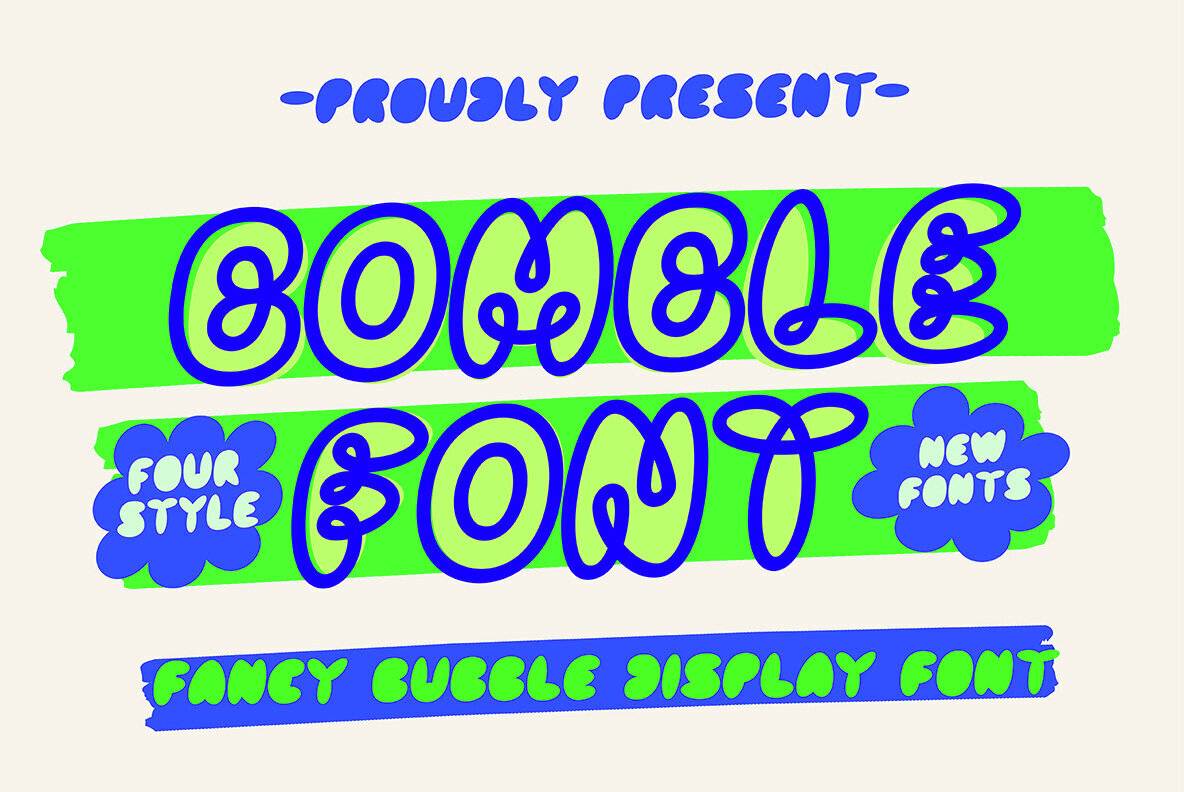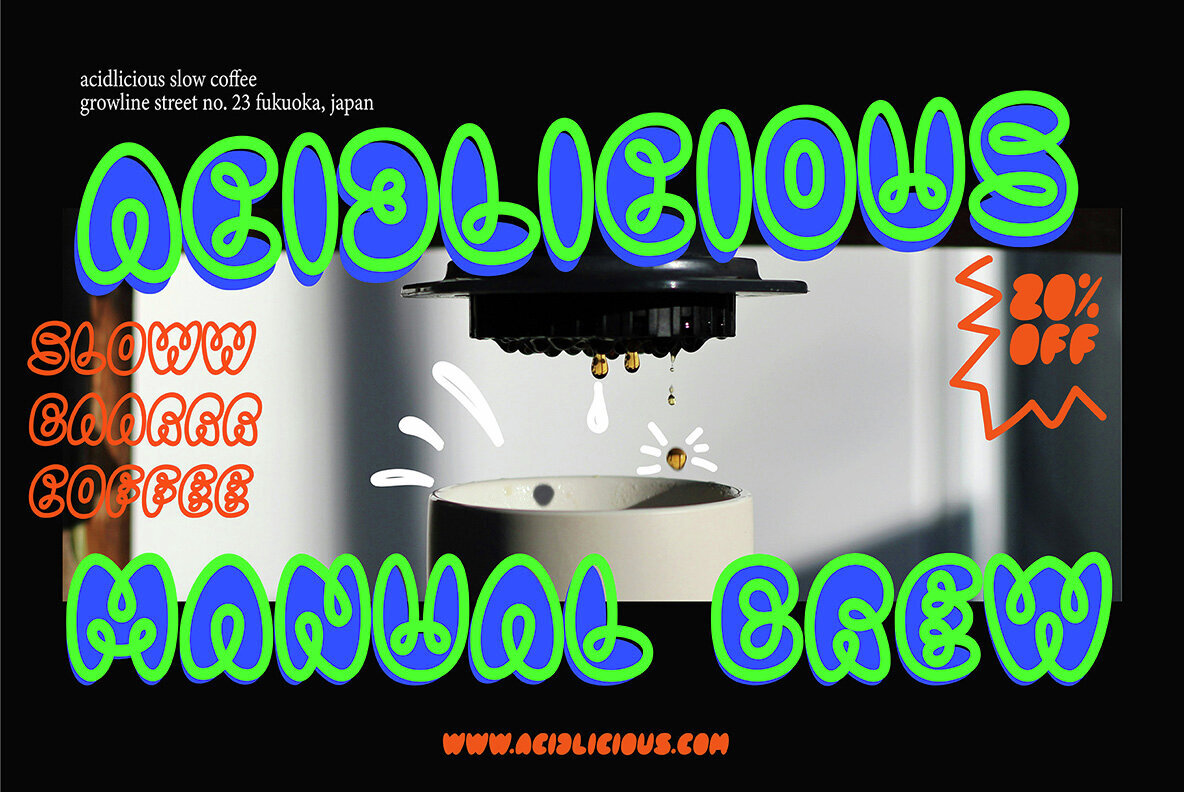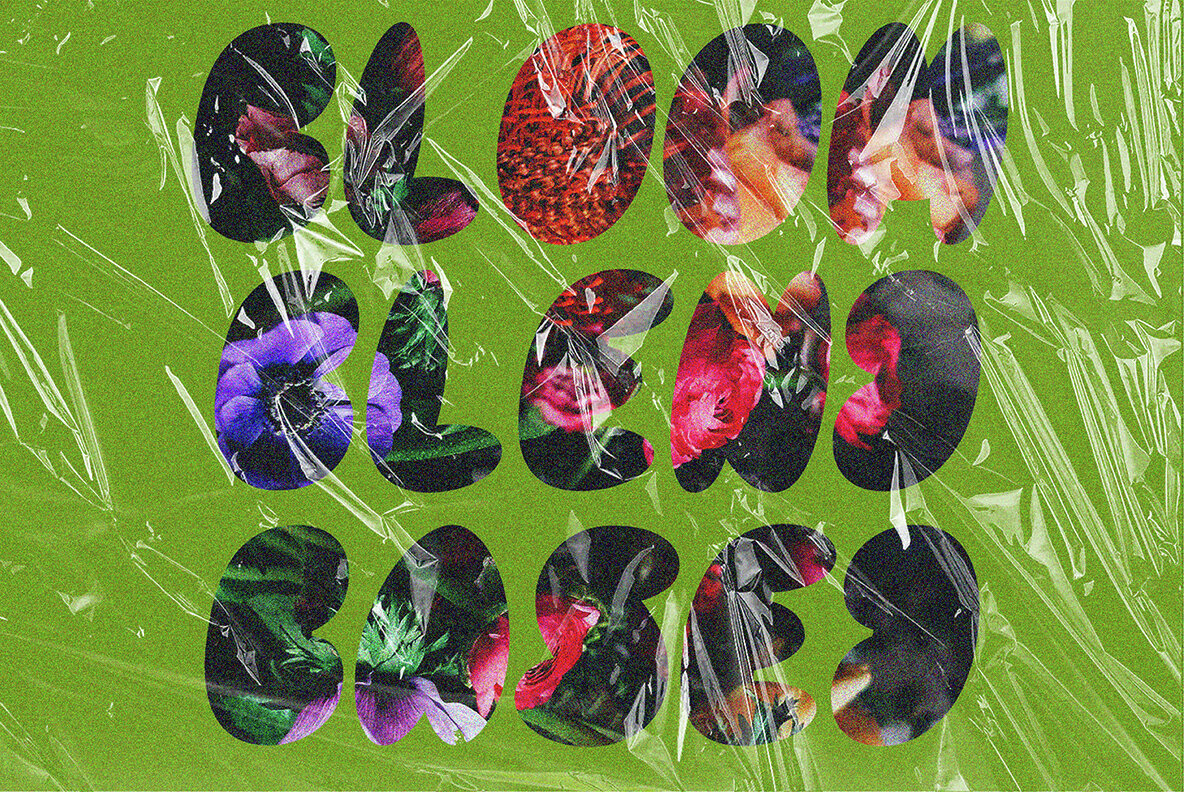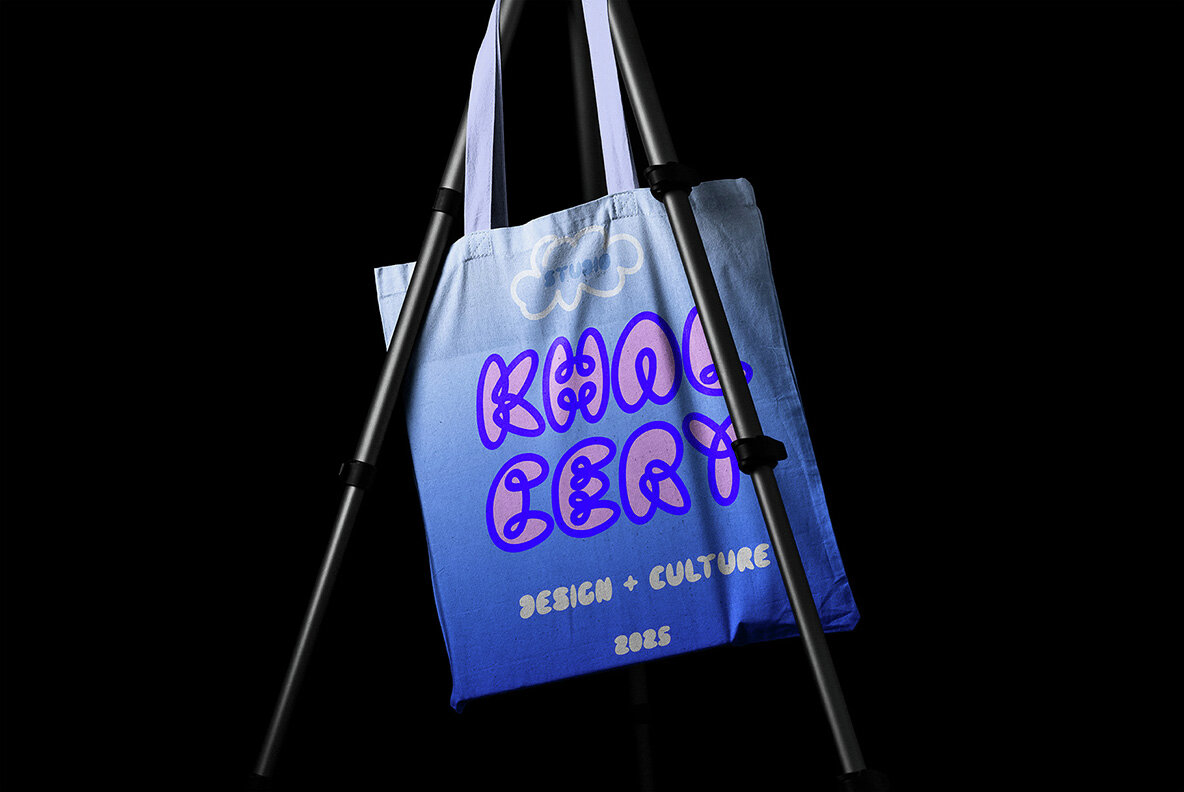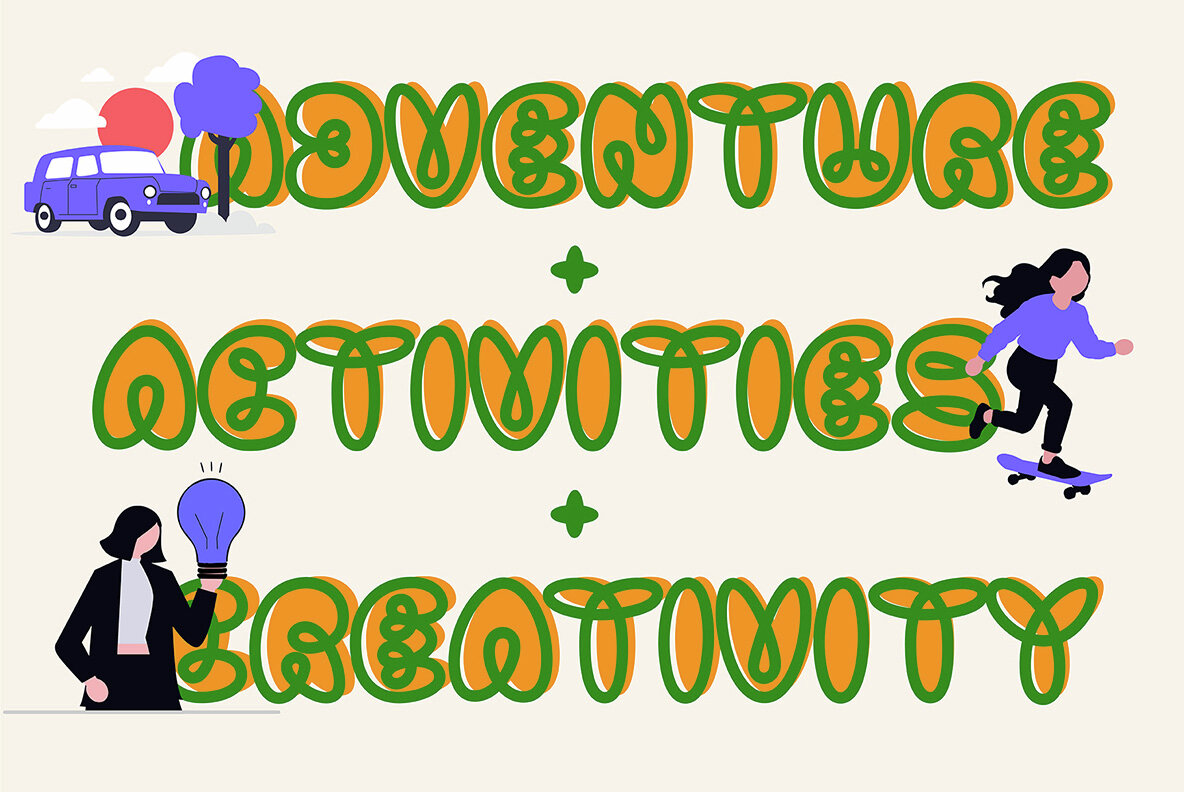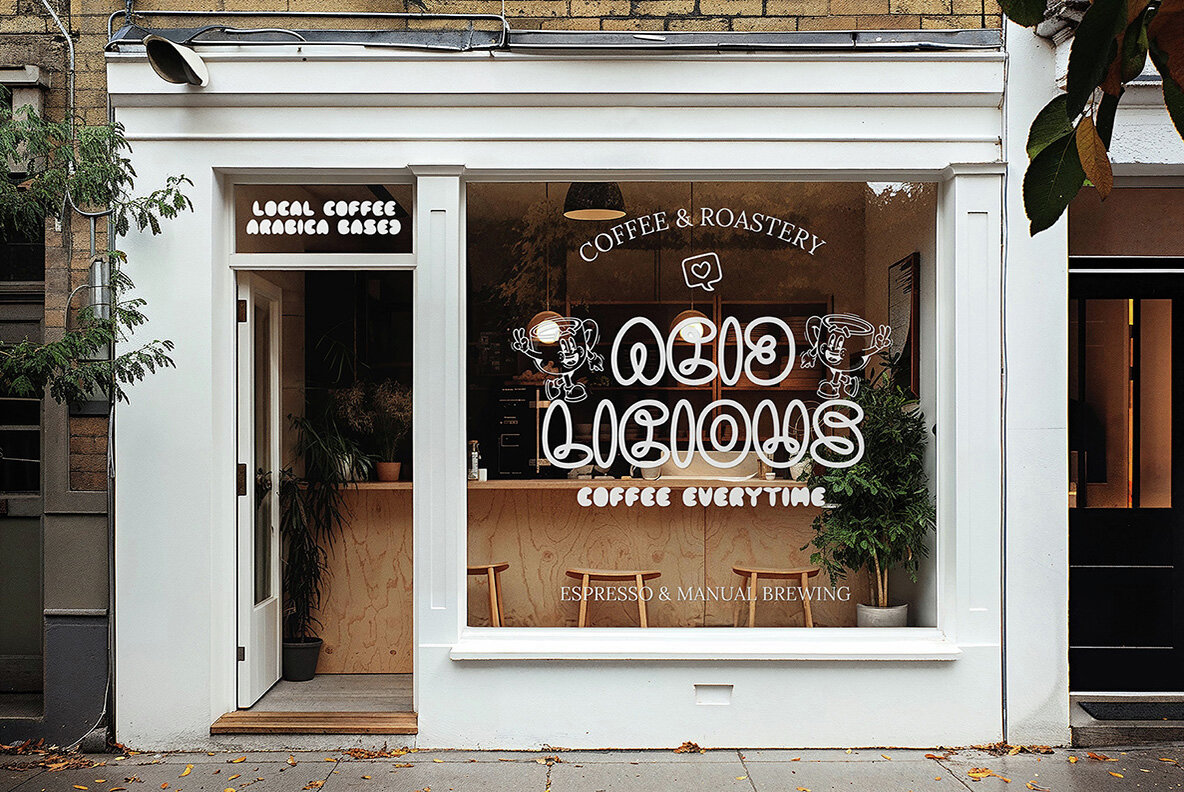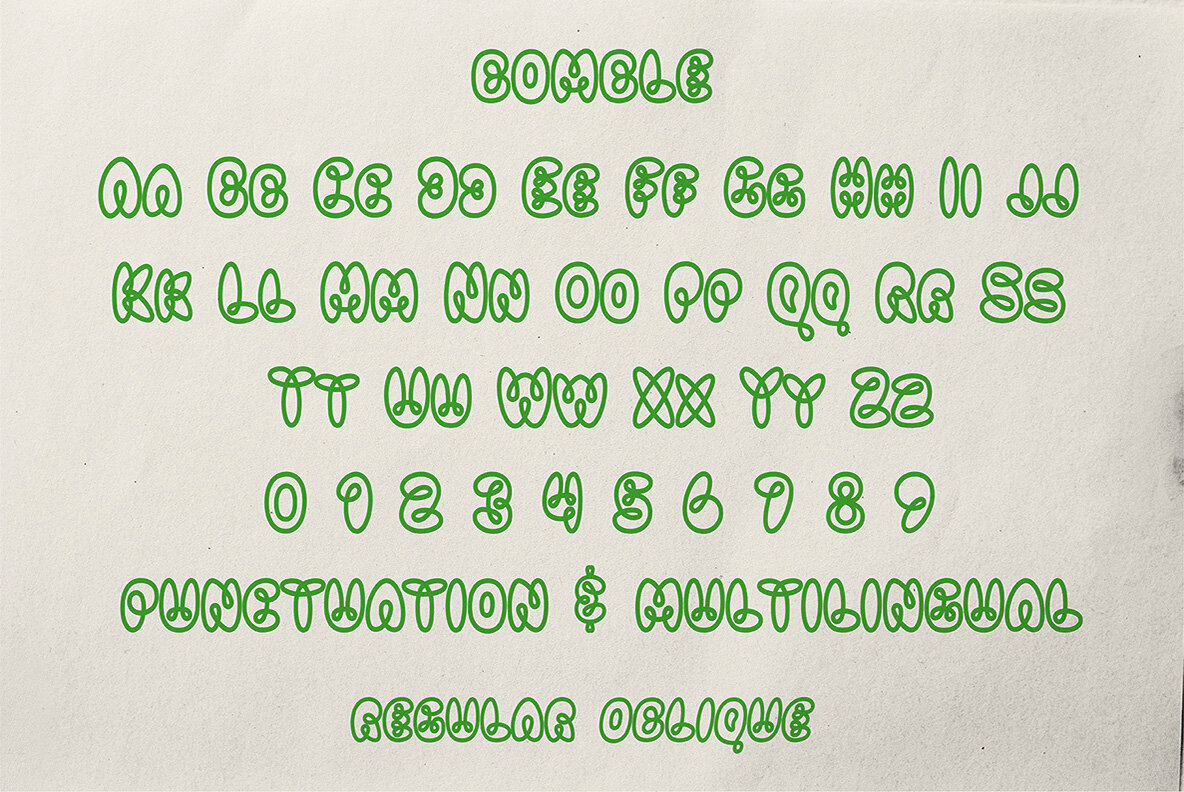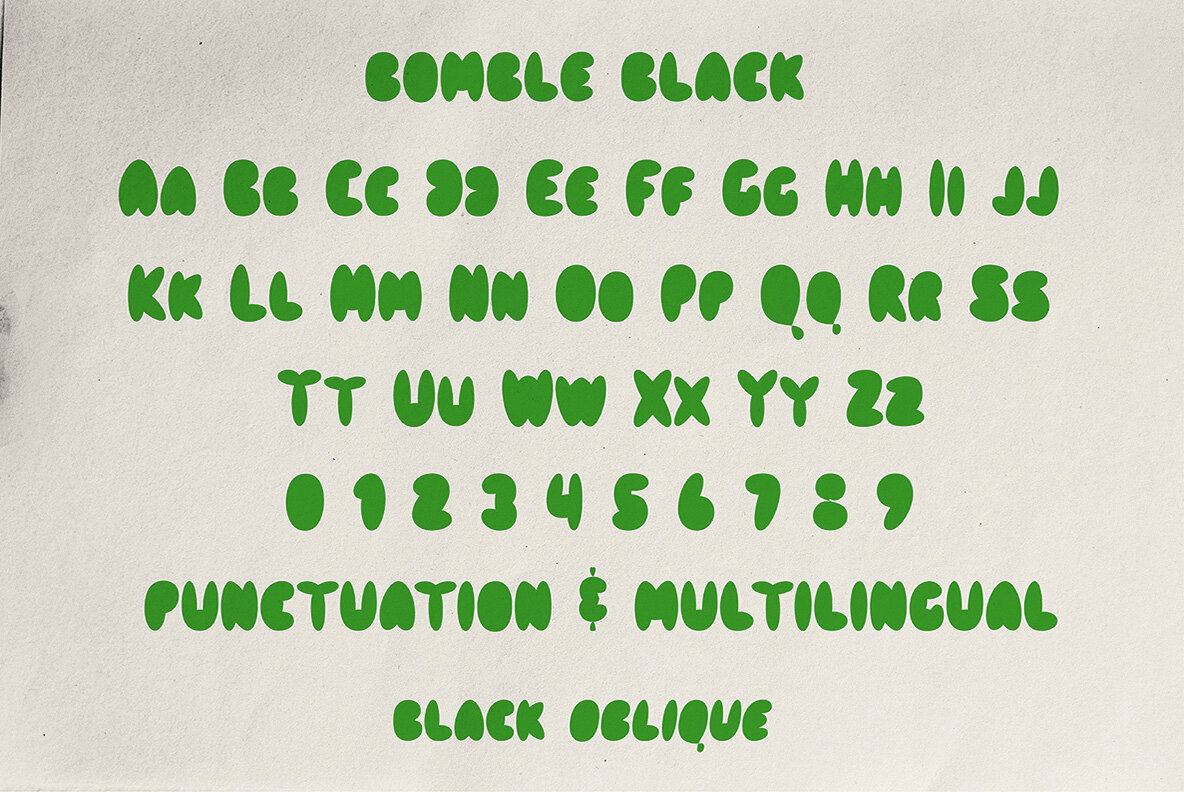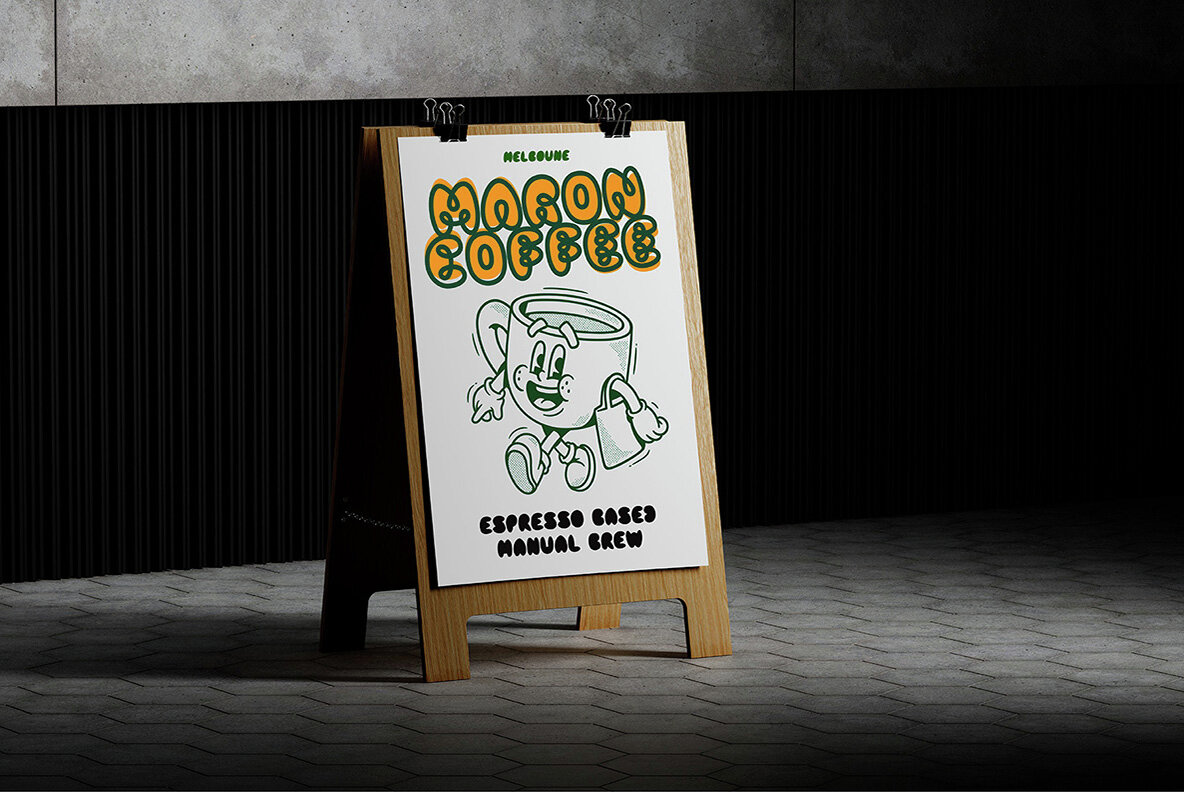
VT Bomble Font
Bomble offers a distinctive bubble-style display that combines quirky charm with eye-catching appeal, perfect for bold and playful designs. Available in two weights, Regular and Black, and two styles, Regular and Oblique, this font is designed to stand out in any visual medium. Whether you seek a clean bubble outline or a bold, solid appearance, Bomble delivers with playful precision. Elevate your typography with Bomble, where bubble meets bold, and let your designs burst with fun and personality.Bomble: Unique Bubble Display Font